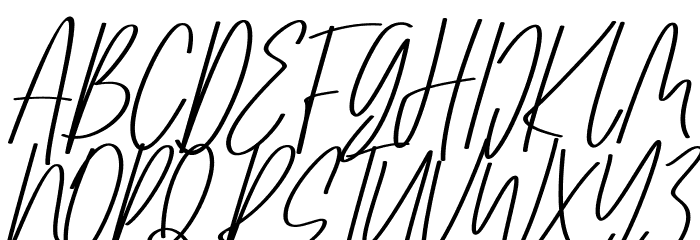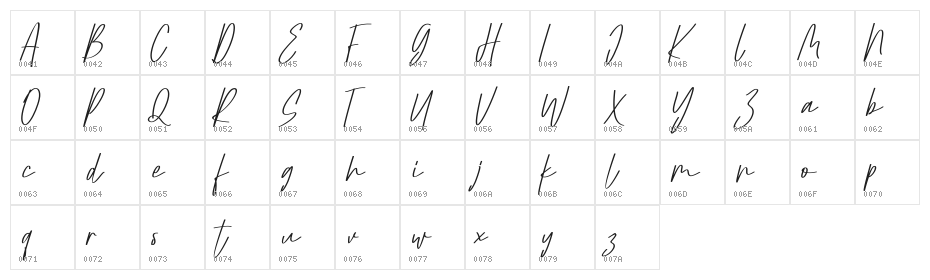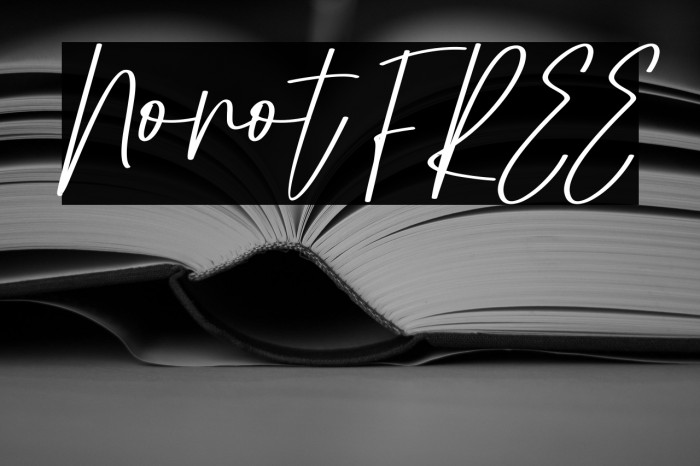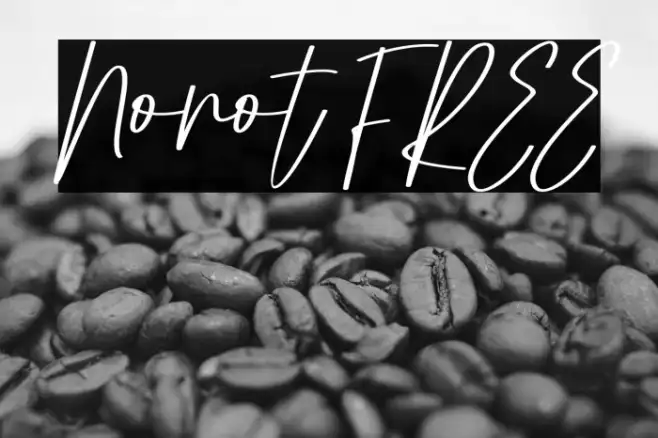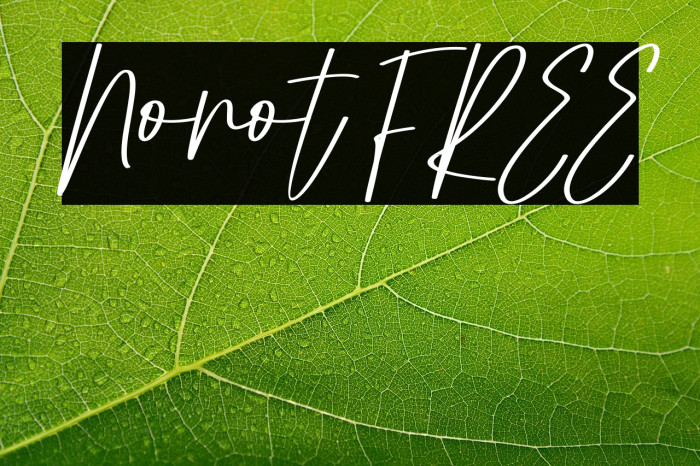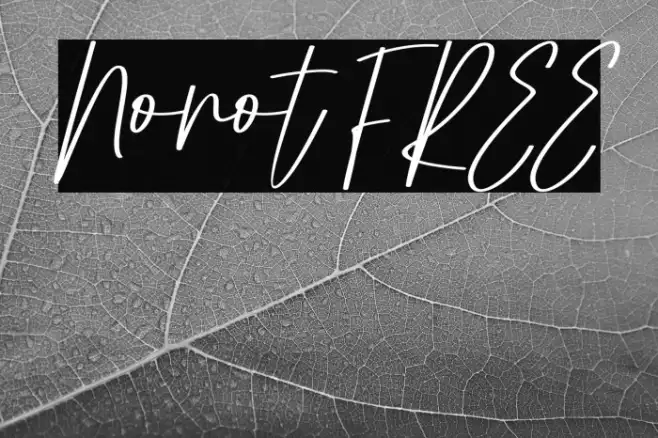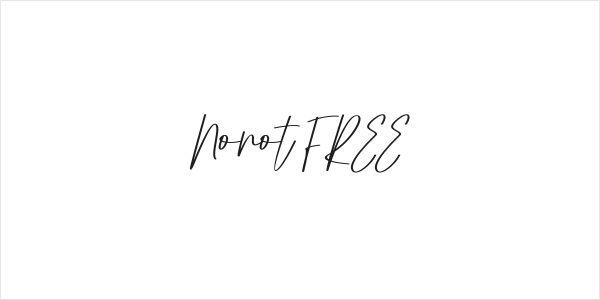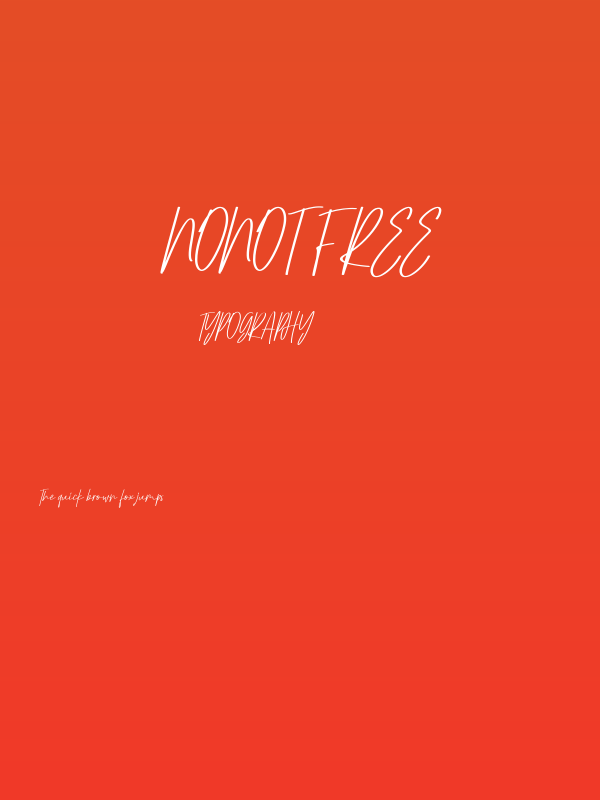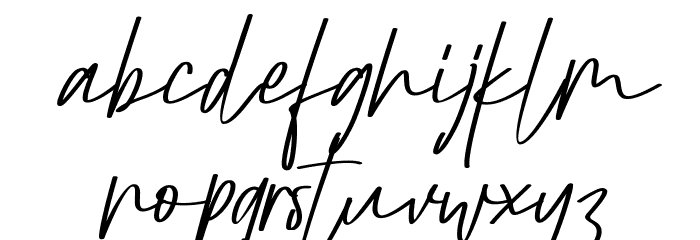
Nonot FREE Font
Nonot FREE Description
This font features a dynamic and expressive handwritten style, characterized by its fluid and continuous strokes. The letters are elongated and slightly slanted, giving it a casual yet sophisticated appearance. The uppercase and lowercase letters maintain a consistent flow, with some letters extending below the baseline, adding to its artistic flair. The numbers and special characters follow the same stylistic approach, ensuring uniformity across all glyphs. This font's unique personality makes it stand out, ideal for projects that require a personal touch.